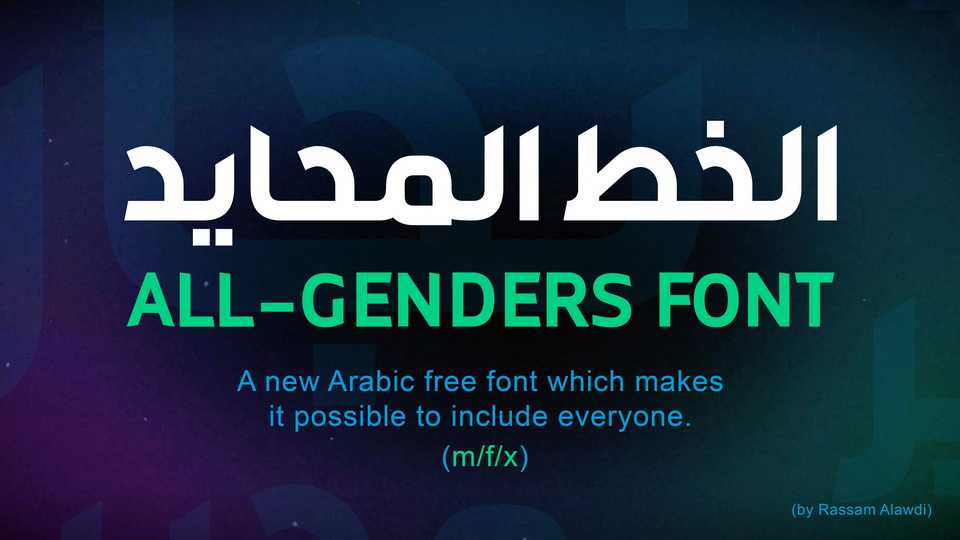
Download All Genders font, a new Arabic typeface which makes it possible to include everyone. To use All-Genders font just enter the key combination (Shortcut) after a male ending.
Designer: Rassam Abdo Naji Alawdi